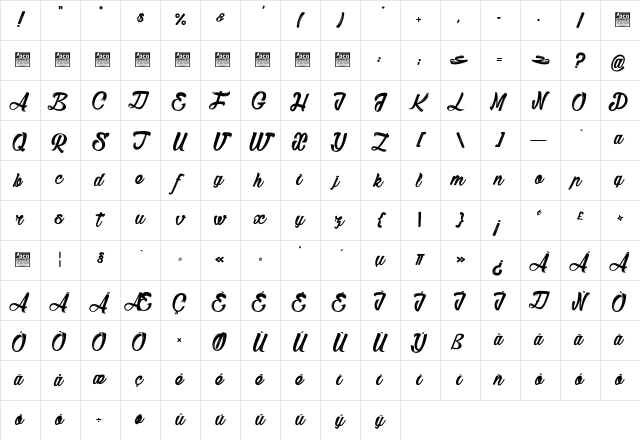
Sketch_PersonalUseOnly Regular Free Font
Sketch_PersonalUseOnly Regular
Foundry: Gregory Medina ￿dcodesign
Designer: Gregory Medina ￿dcodesign
Design Context for Sketch_PersonalUseOnly
Sketch_PersonalUseOnly is a composed and adaptable typeface that performs quietly and consistently across a wide range of design contexts.